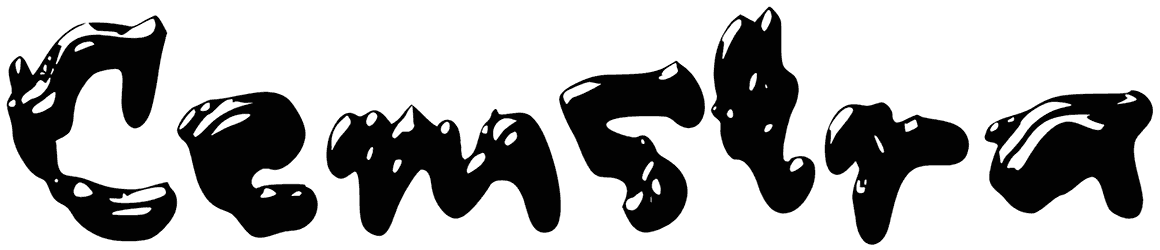
c Cemstra Font
Deformed and dripping, c Cemstra, a destroyed font, is perfect for making a statement in all sorts of print and digital works, especially those going for a spooky vibe. The precise childish form and horror flair of this…
Deformed and dripping, c Cemstra, a destroyed font, is perfect for making a statement in all sorts of print and digital works, especially those going for a spooky vibe.